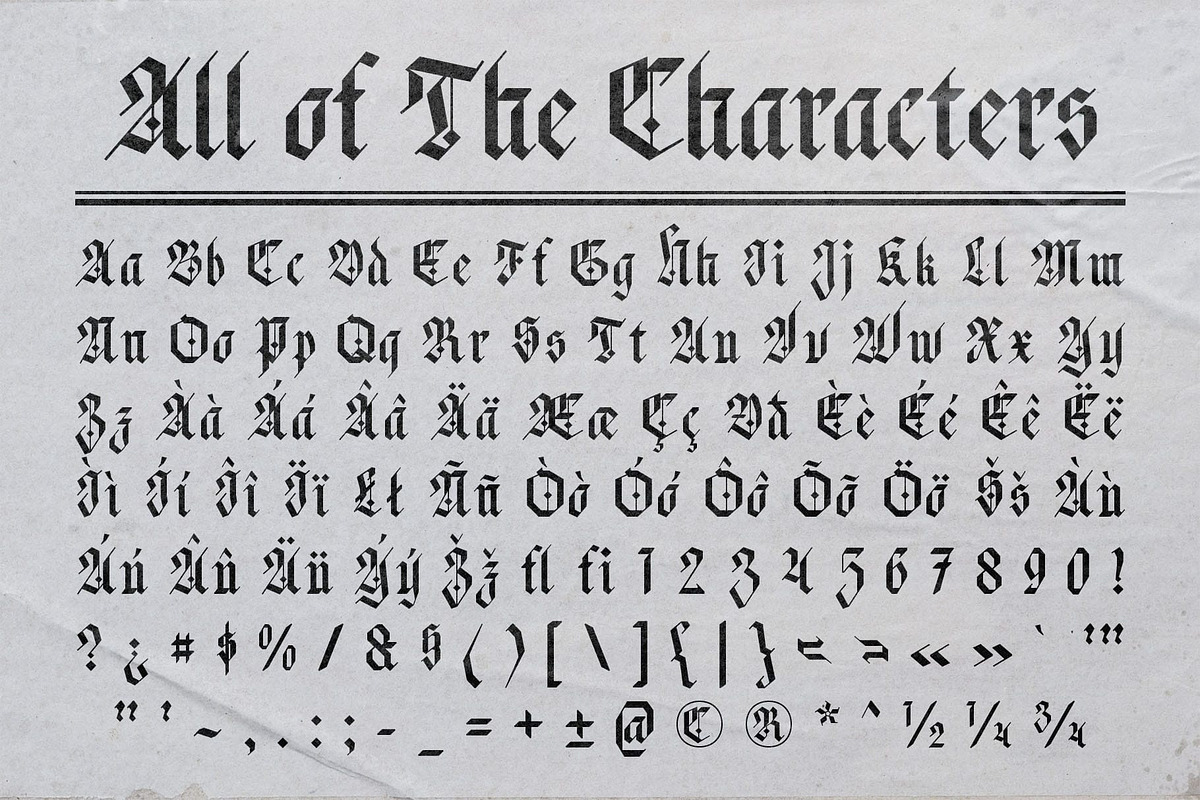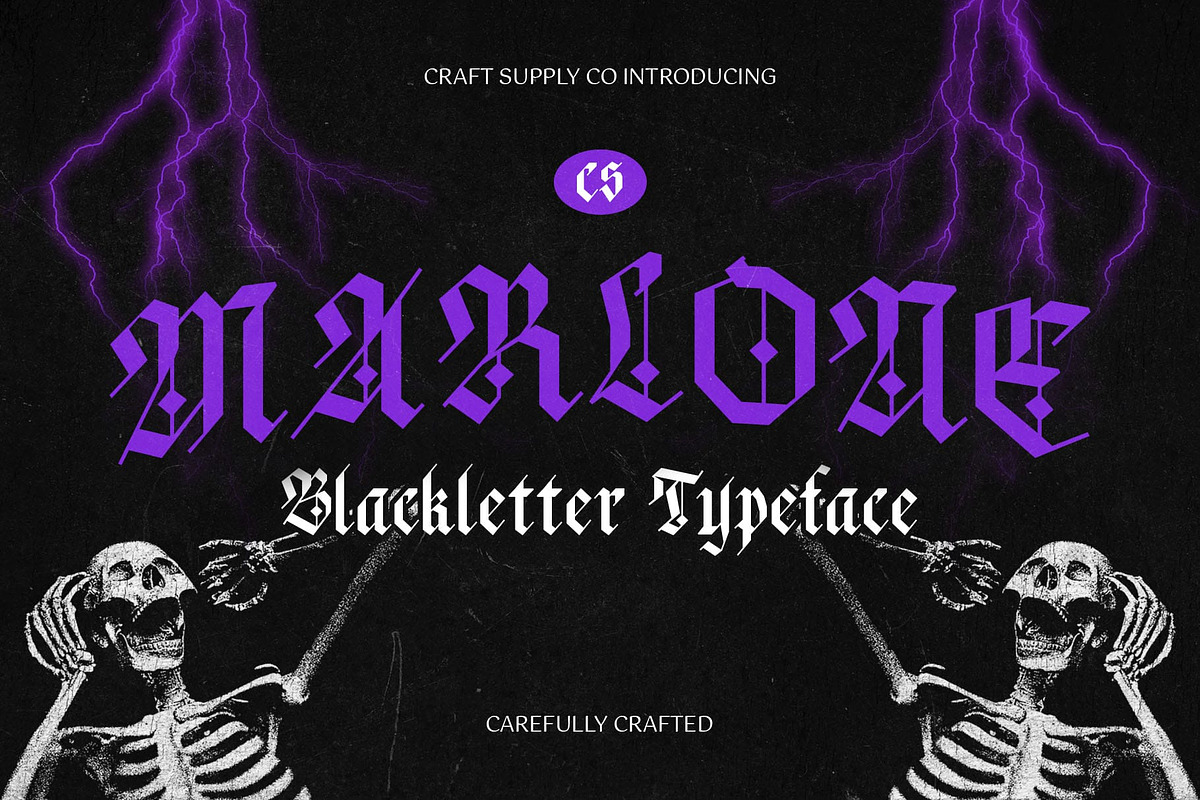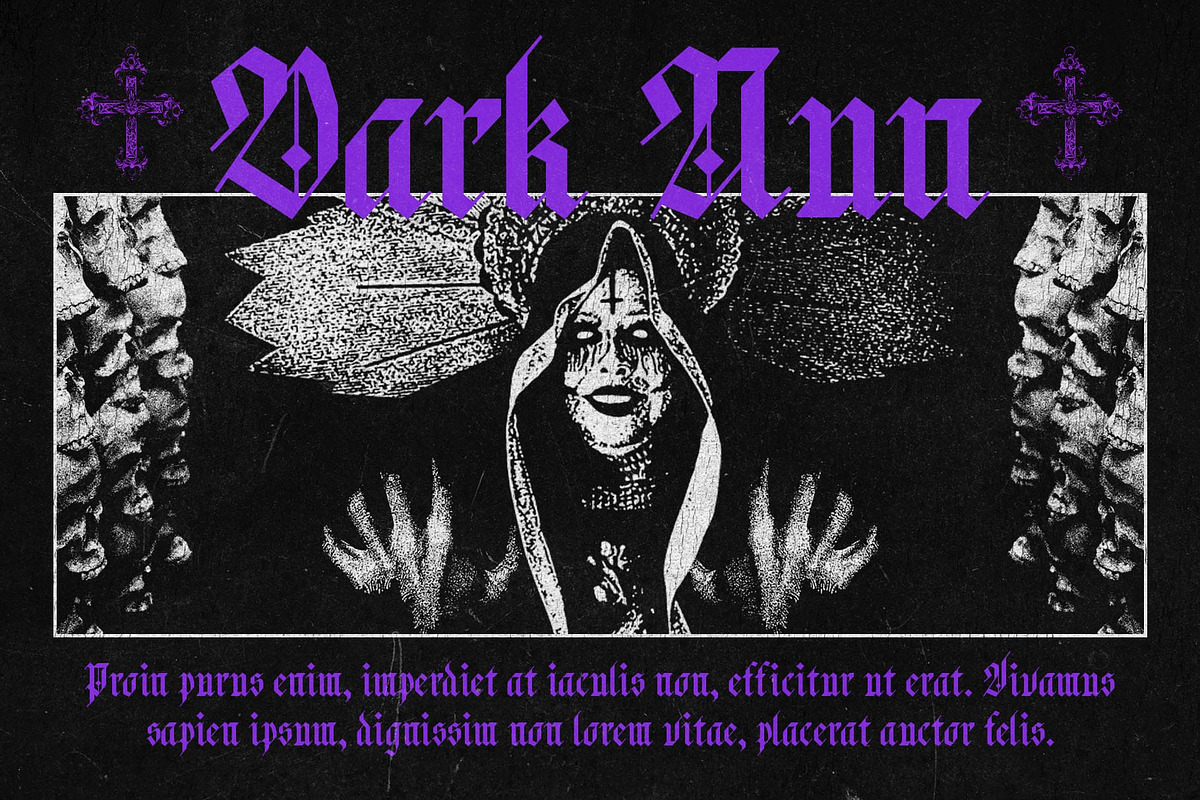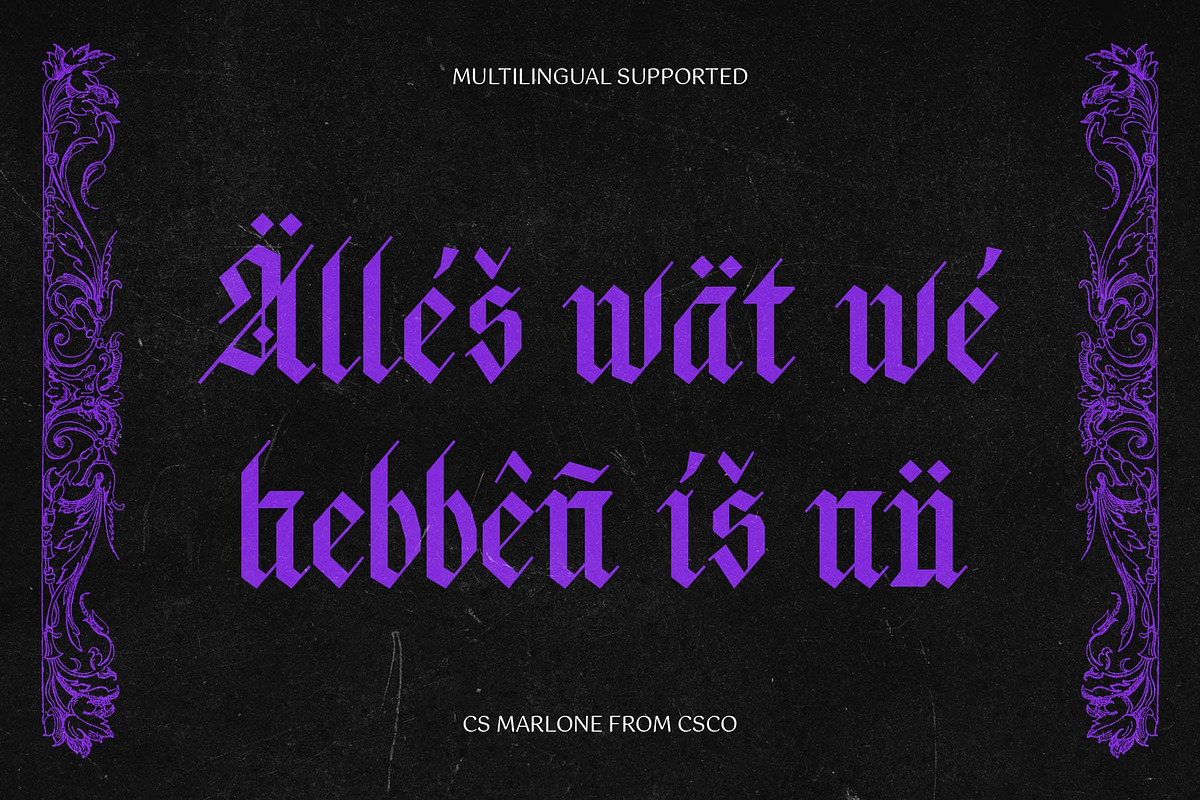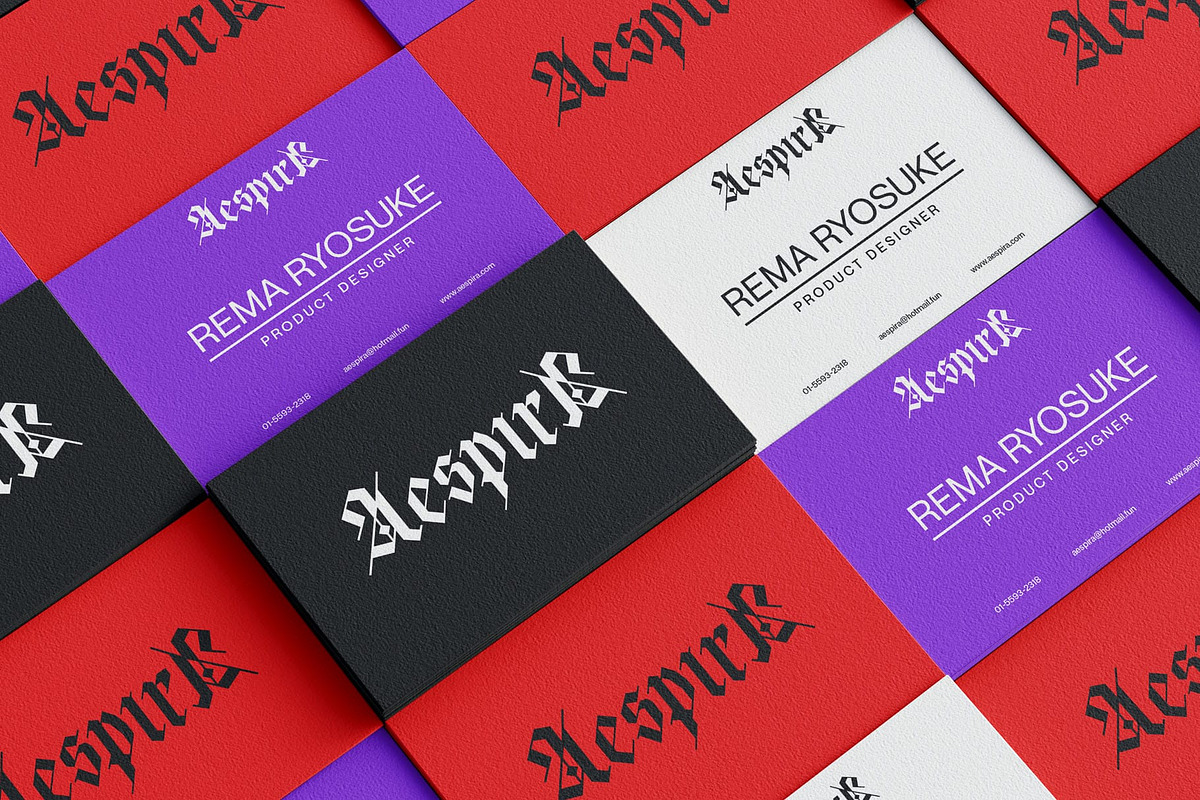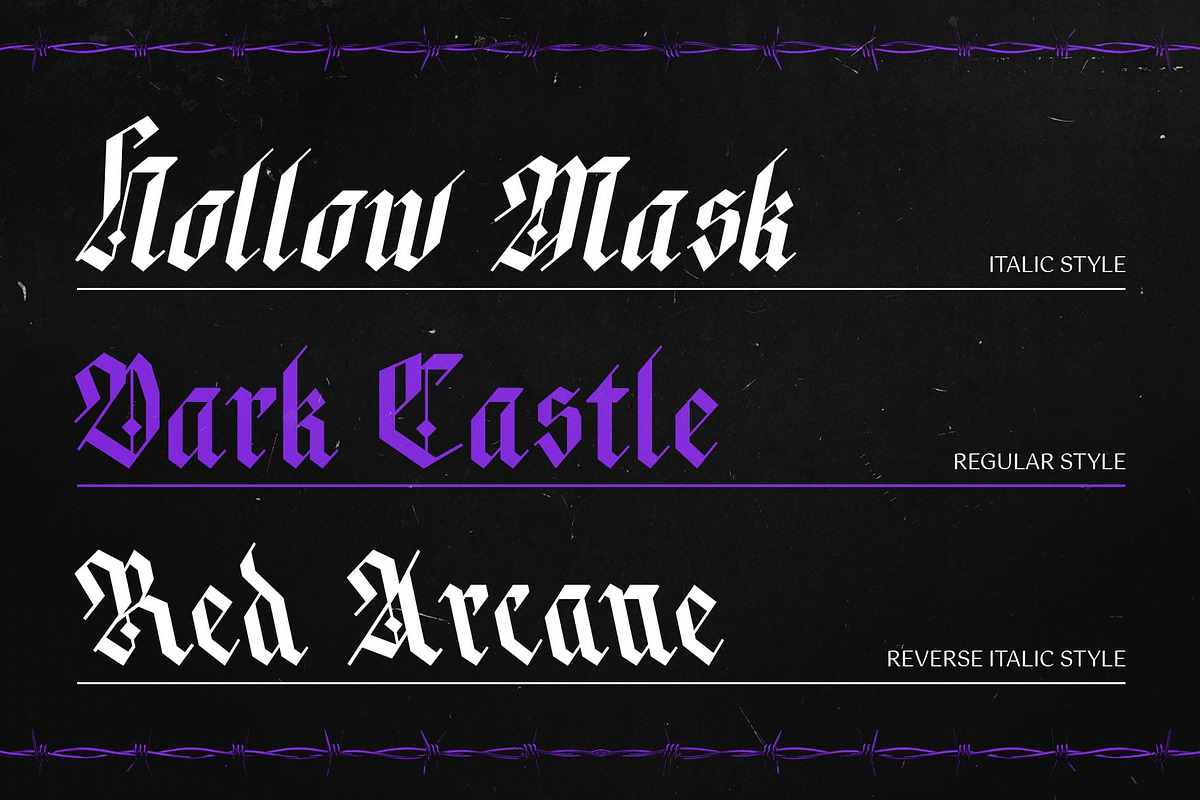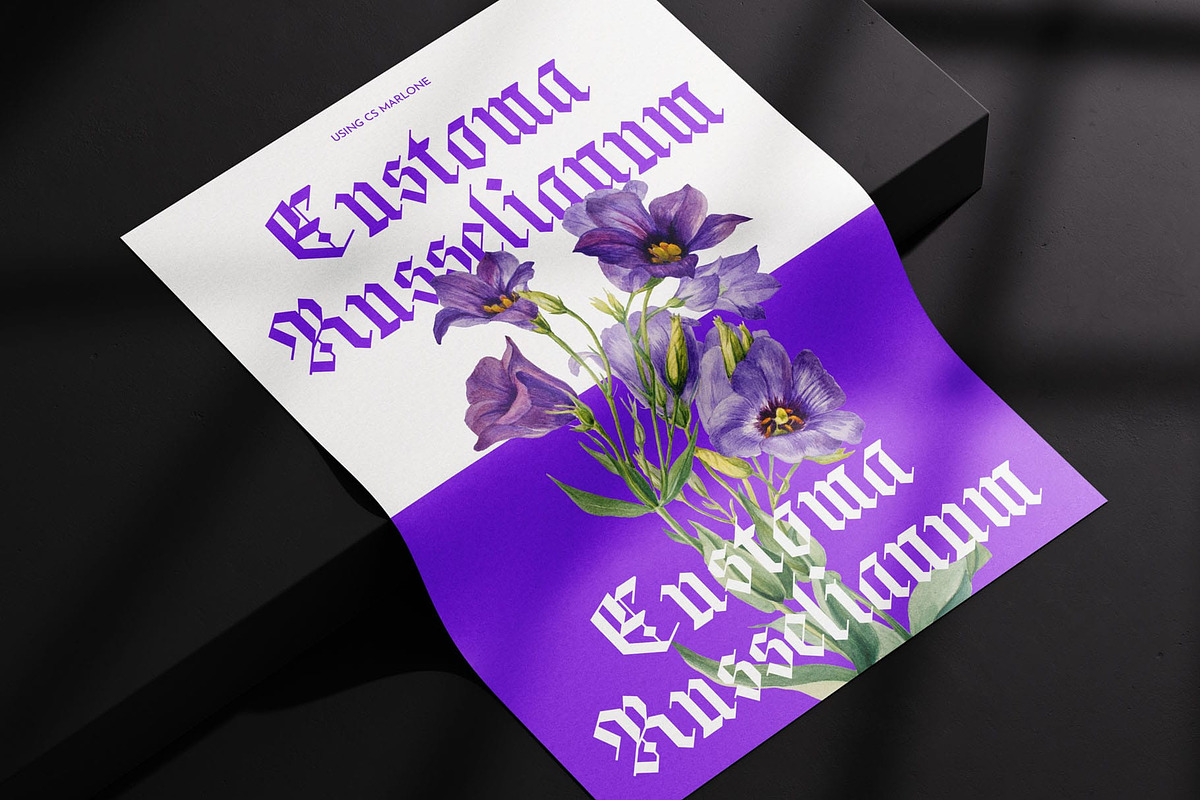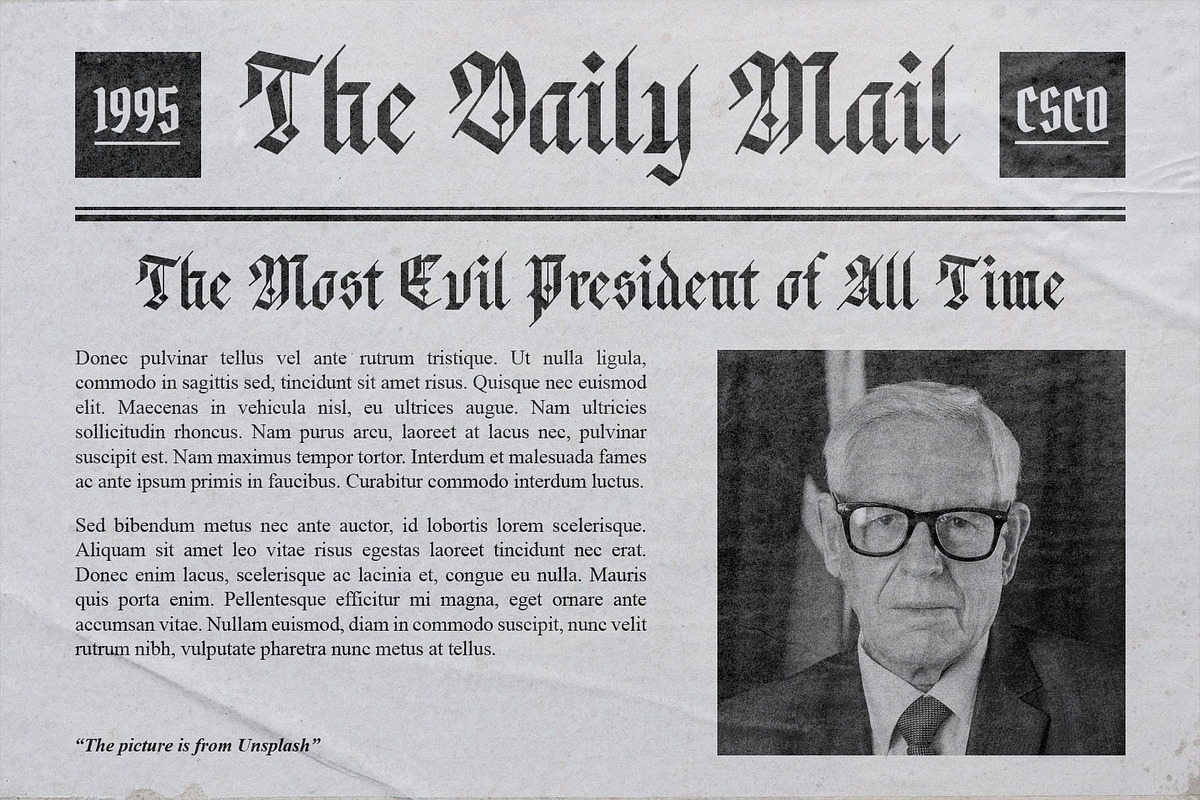
CS Marlone – Blackletter Font
CS Marlone Font: A Bold Revival of Medieval Elegance
Classic Blackletter Display with a Strong Presence CS Marlone is a striking blackletter display font inspired by the intricate craftsmanship of medieval script. Its bold, sharp letterforms embody the strength and grandeur of historical calligraphy, making it an ideal choice for designs that require a commanding and timeless aesthetic.
Sharp, Decorative Forms for Vintage and Gothic Appeal With its dramatic strokes and ornate details, CS Marlone captures the essence of traditional blackletter typography. The refined yet decorative shapes add a sense of sophistication, making it perfect for gothic, vintage, and old-world designs that demand a rich visual impact.
Perfect for Elegant and Historical Designs Whether used for branding, editorial layouts, logos, or event invitations, CS Marlone enhances any project with its historical charm. It seamlessly blends the mystique of medieval calligraphy with modern usability, making it a powerful choice for both classic and contemporary design themes.
Versatile for Artistic and High-Impact Typography CS Marlone thrives in projects that require bold typography with a touch of heritage. From gothic-inspired branding to luxury packaging and book covers, its timeless appeal ensures a strong and elegant presence across various creative applications.
- CS Marlone Regular
- CS Marlone Italic
- CS Marlone Reverse Italic